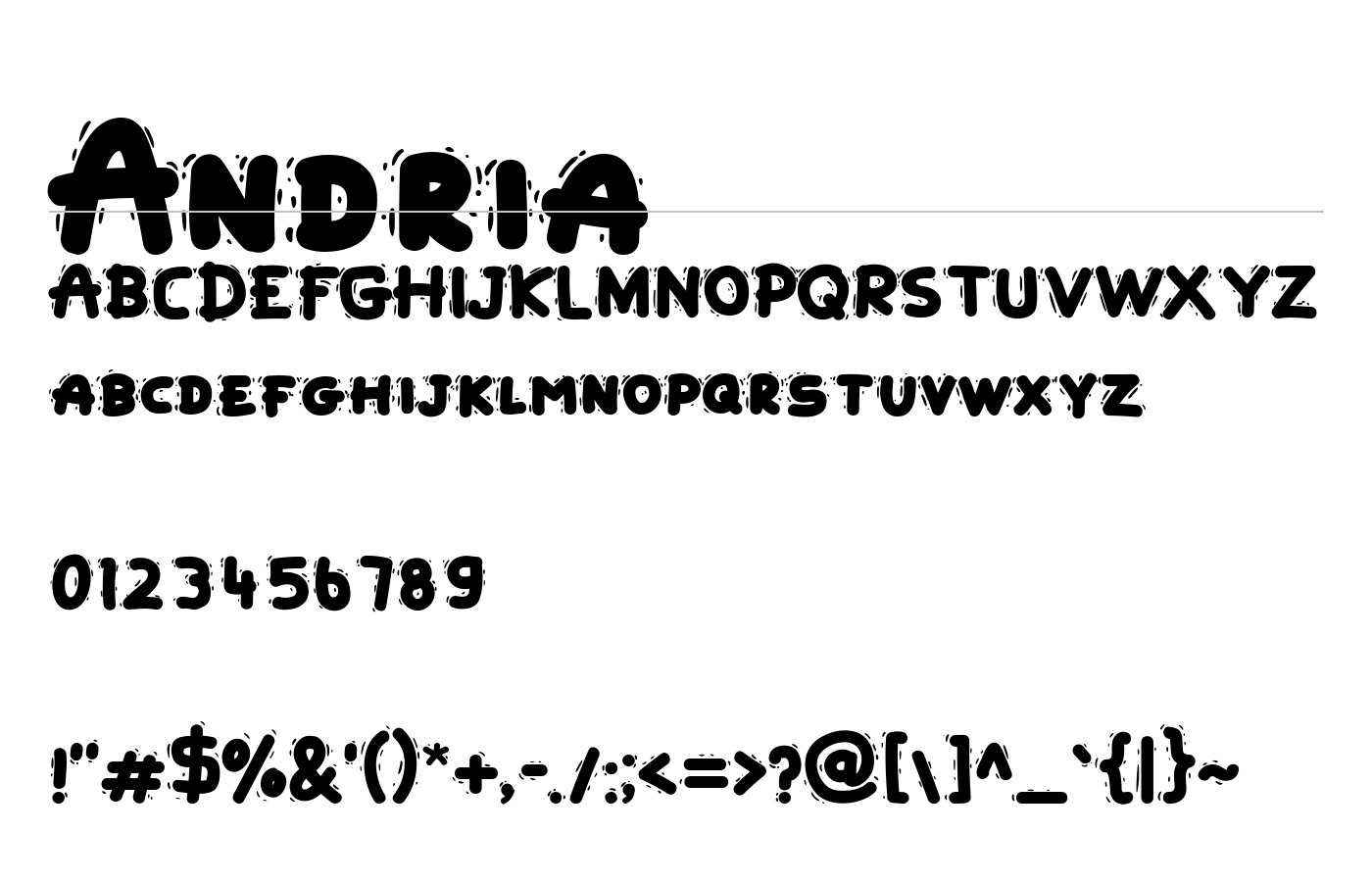
Andria is a playful and bold sans serif font with rounded, thick letterforms that convey a friendly and approachable vibe. Its irregular and slightly bubbly shapes make it ideal for fun, casual designs like children’s books, posters, and branding that seeks a lively, informal tone. This font works well for headlines and display uses where a cheerful and energetic personality is desired.
Andria Font
About Andria Font